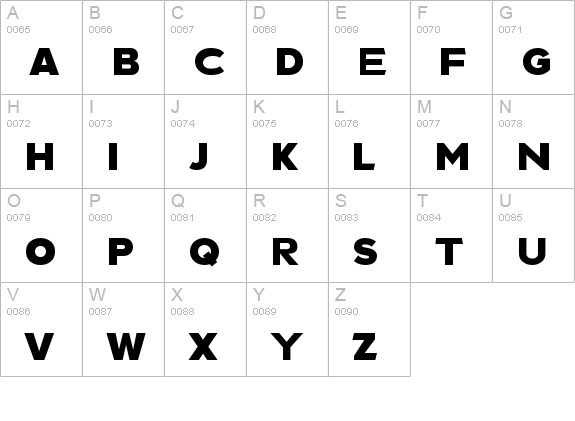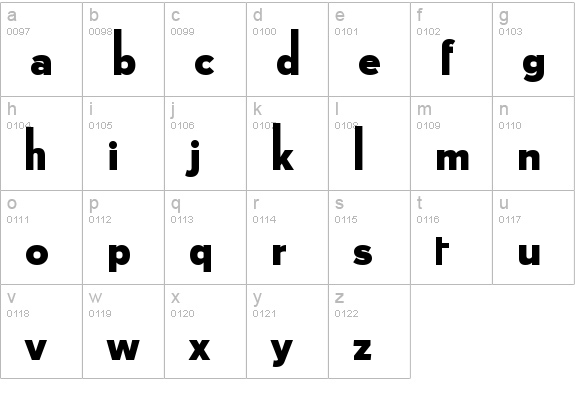
20th Century Fox 1994 New Logo Font is a completely free font in the Theme > Logo category, designed by Harrieloto. It has been downloaded 2,394 times and is available for Windows, Mac and Linux.
The 20th Century Fox 1994 New Logo Font is a timeless and iconic typeface that captures the essence of classic Hollywood glamour. This elegant font exudes sophistication and charm, making it perfect for adding a touch of vintage flair to any design project. With its clean lines and graceful curves, this font is sure to make a statement and elevate your creative work to new heights.